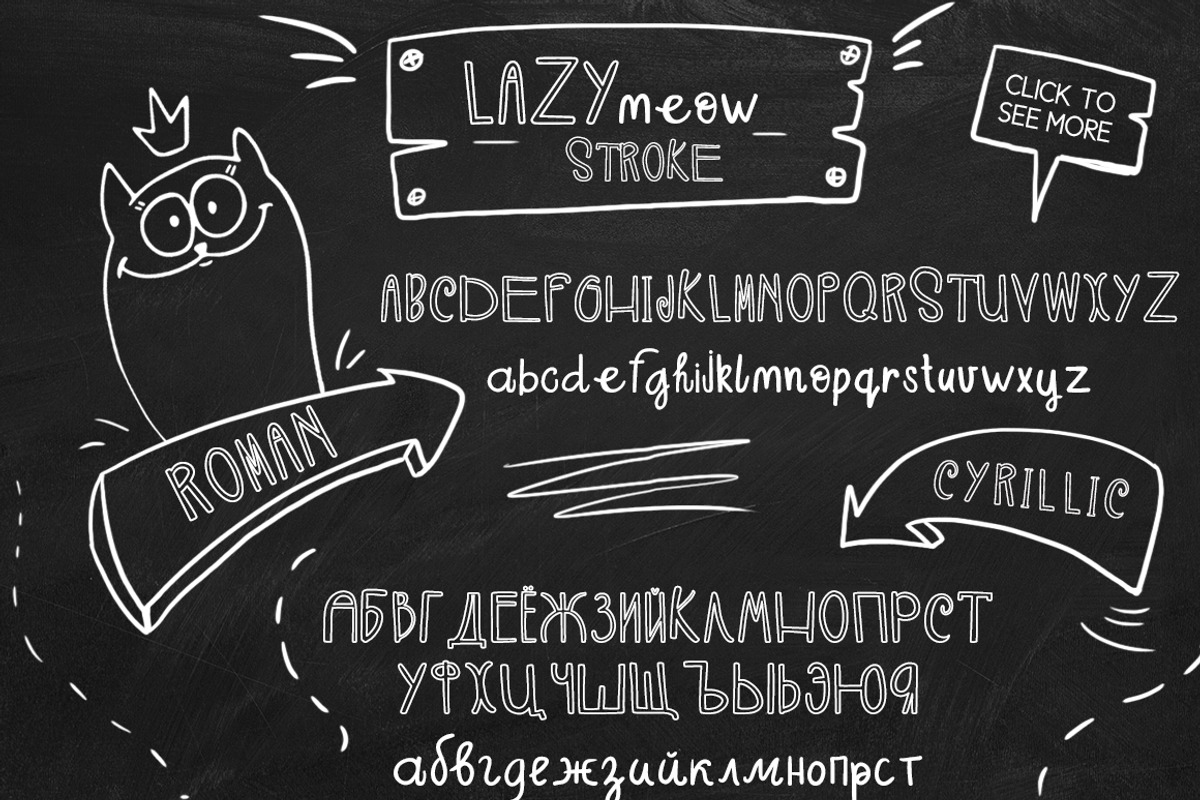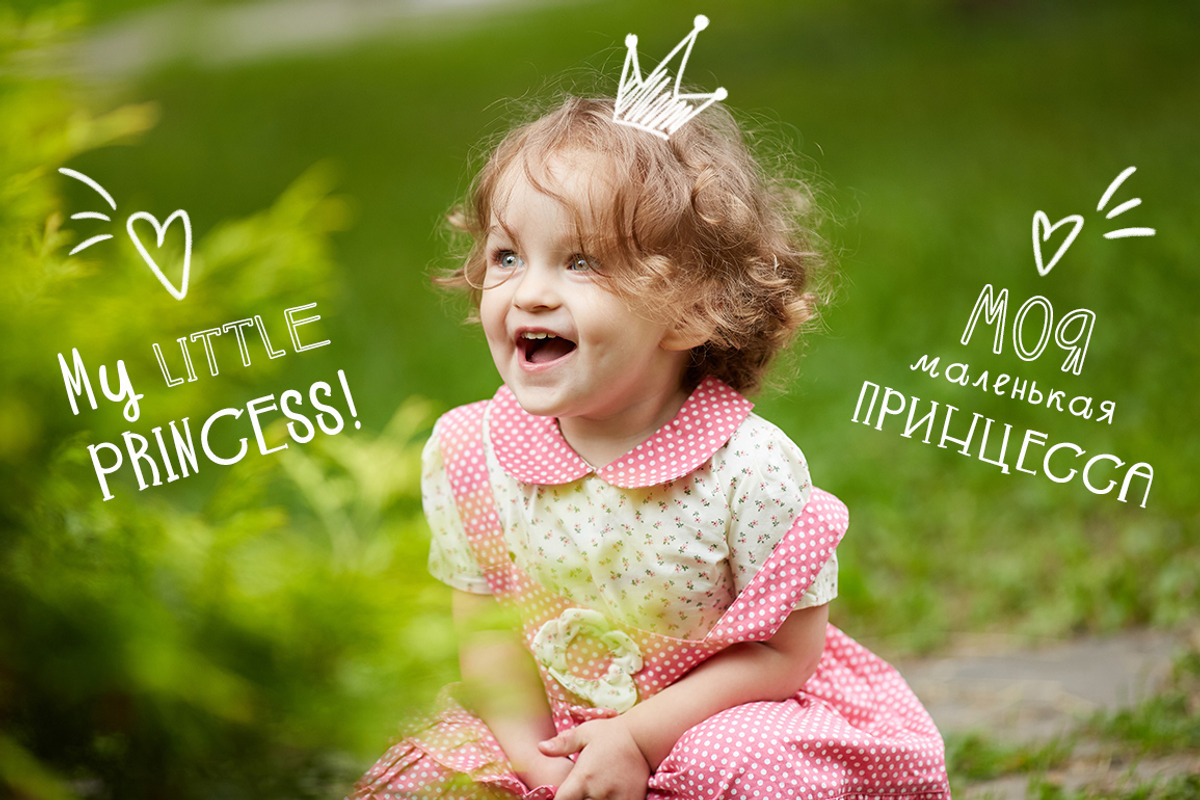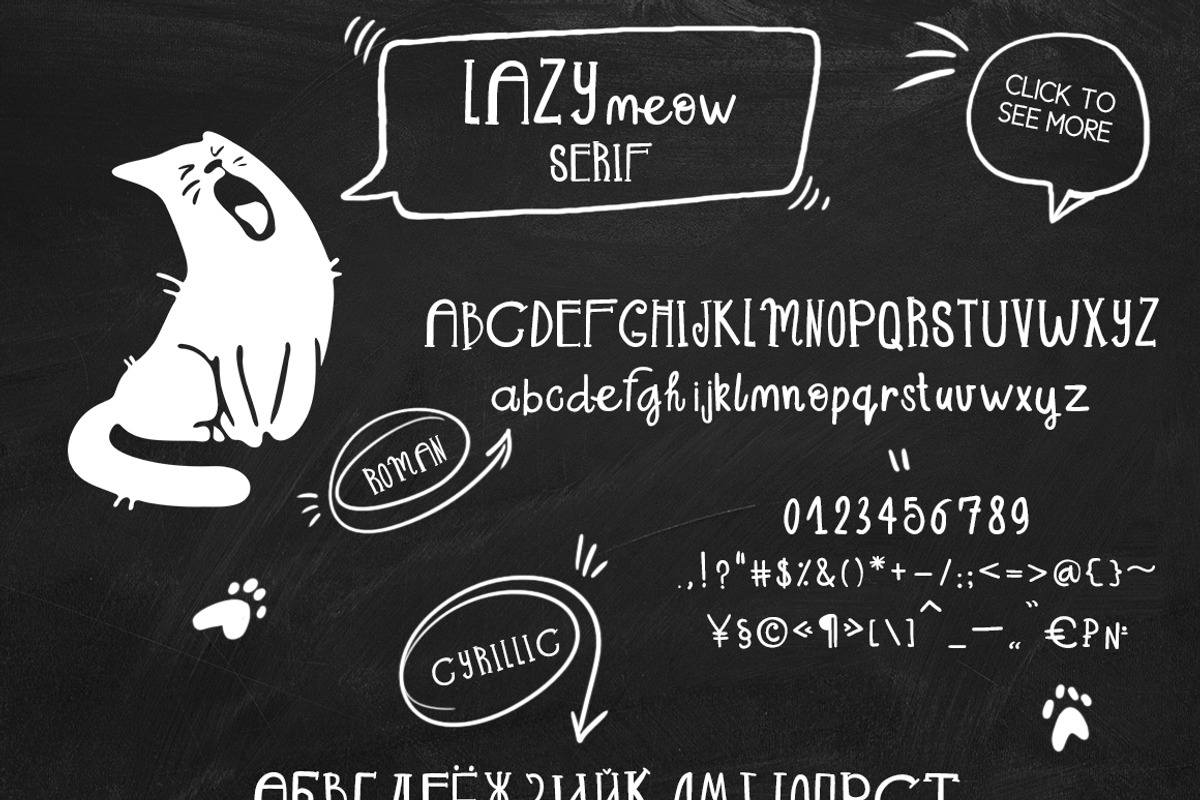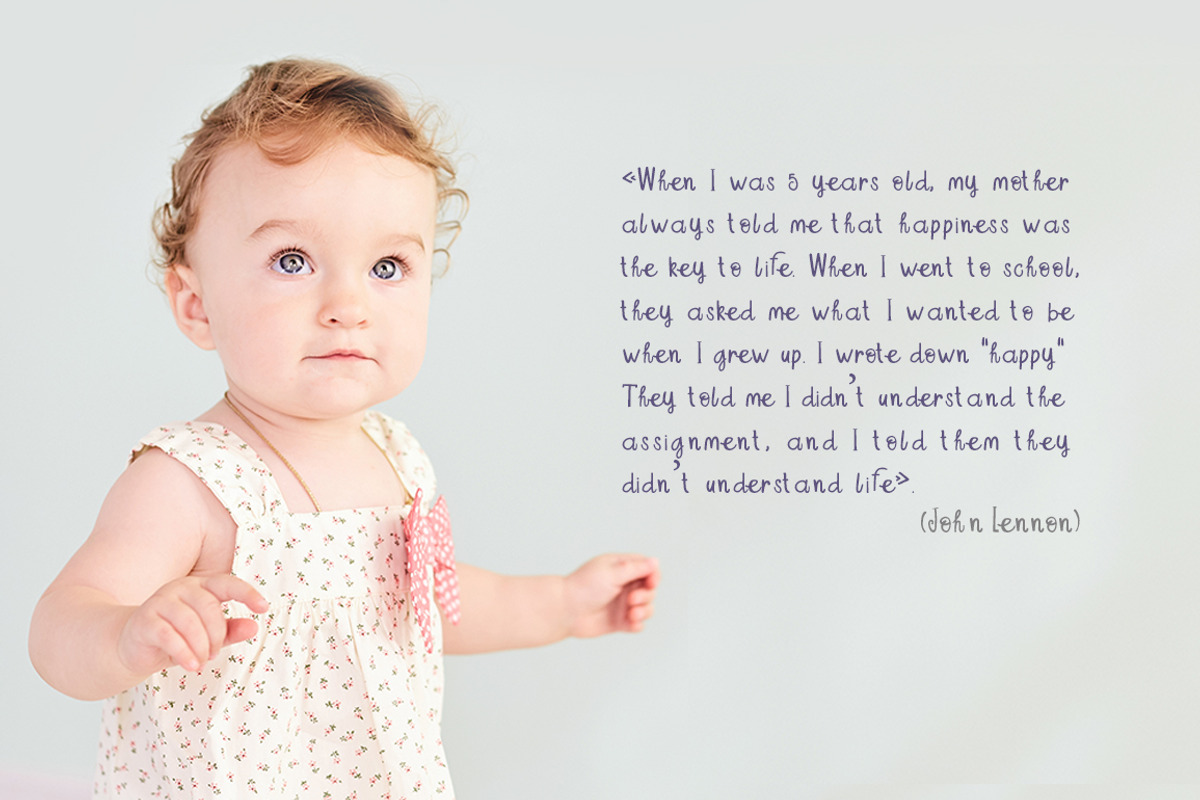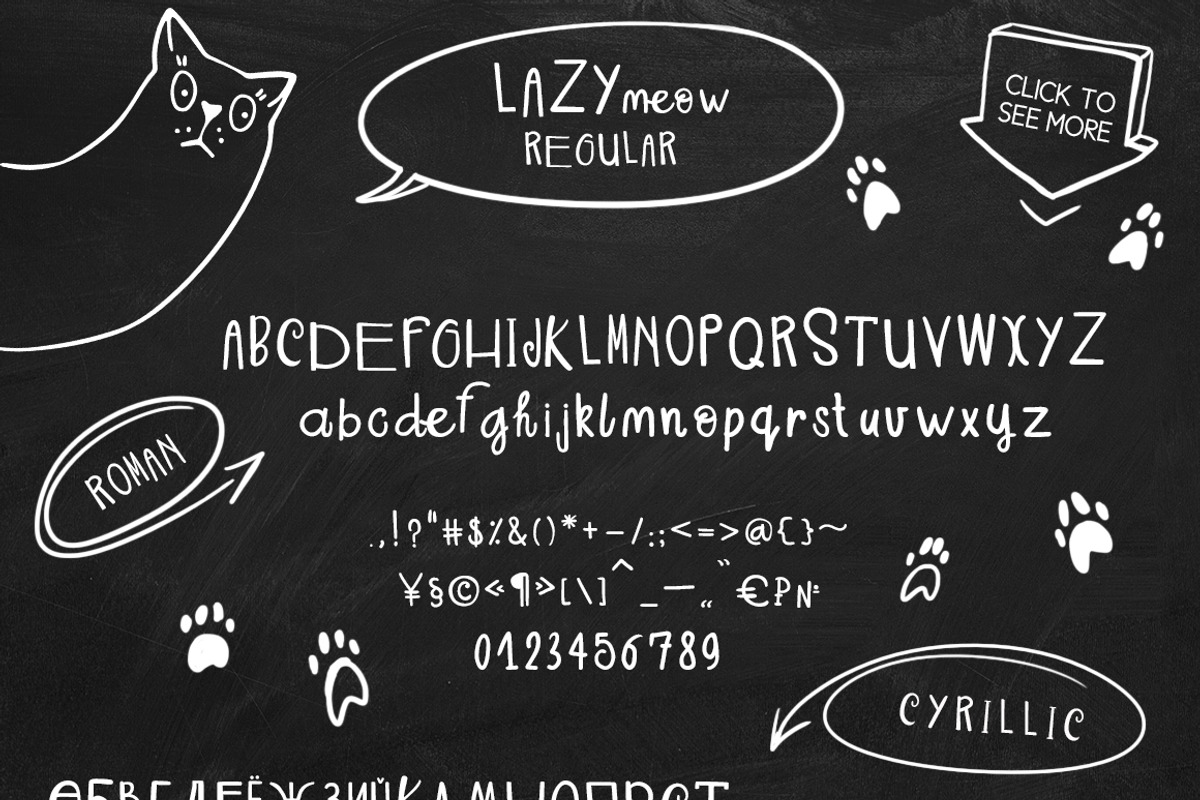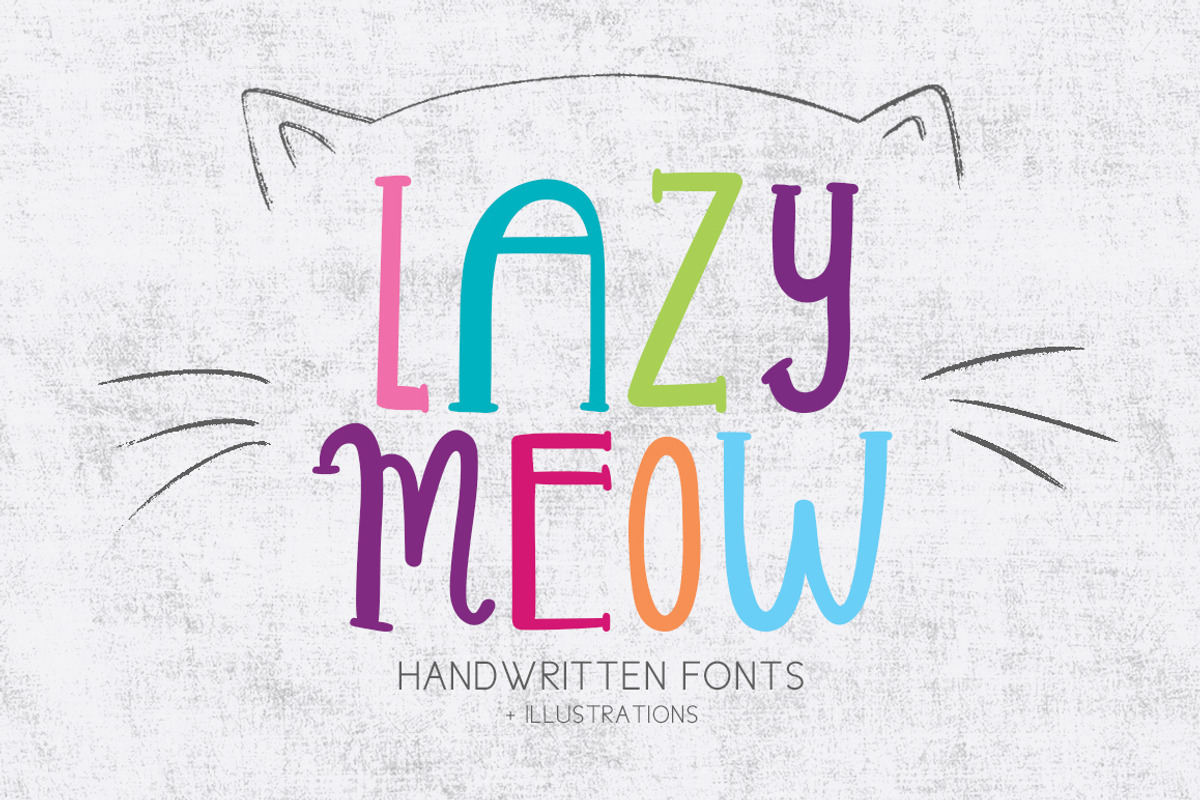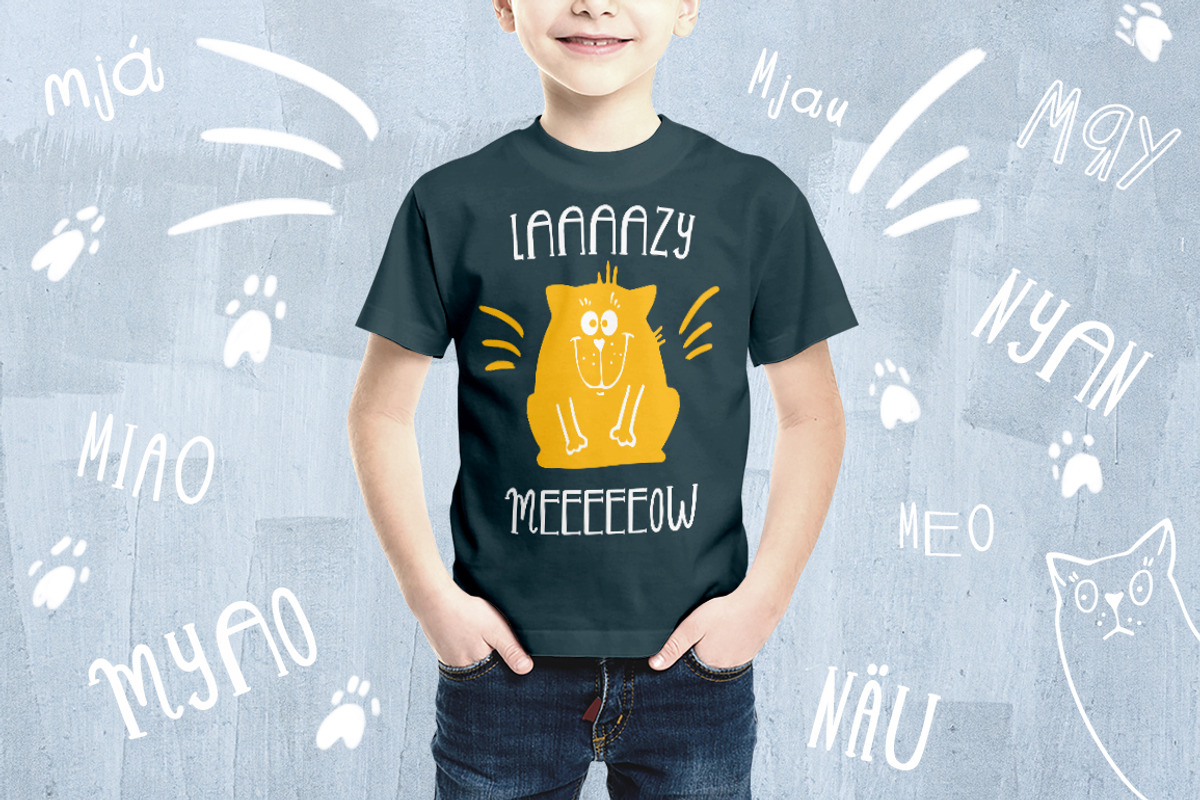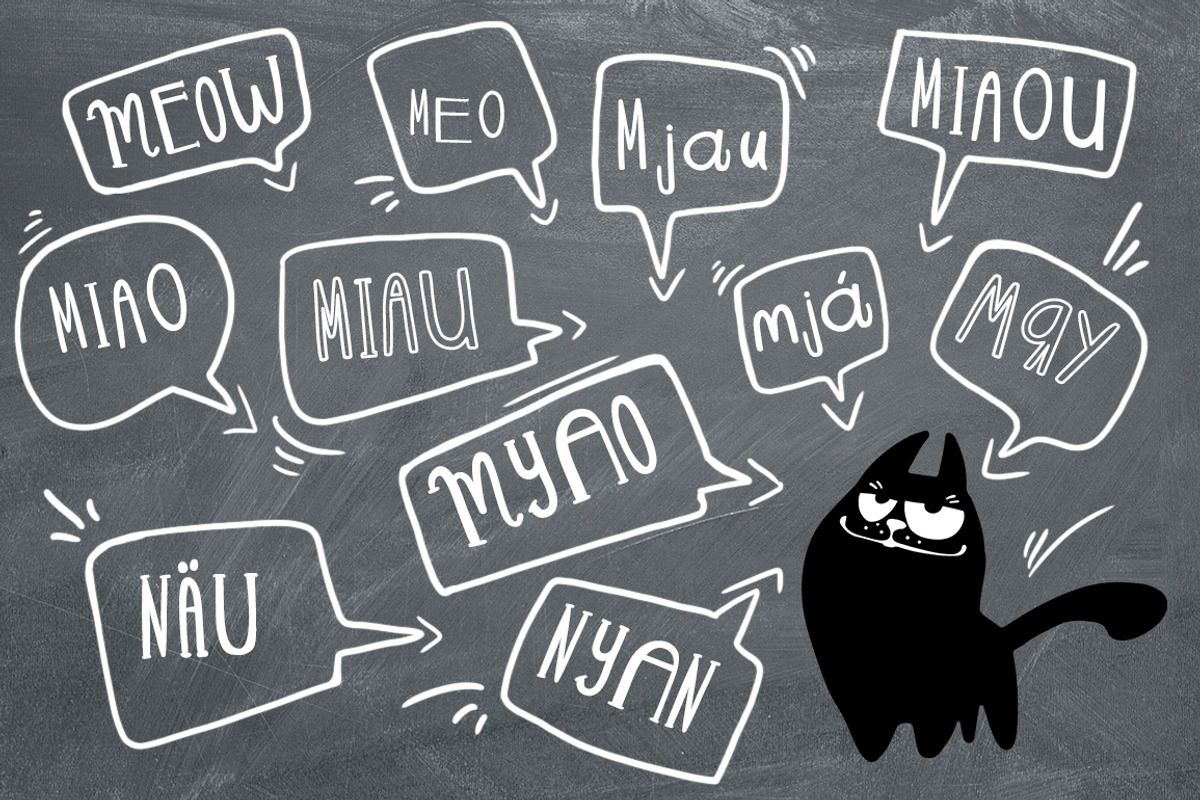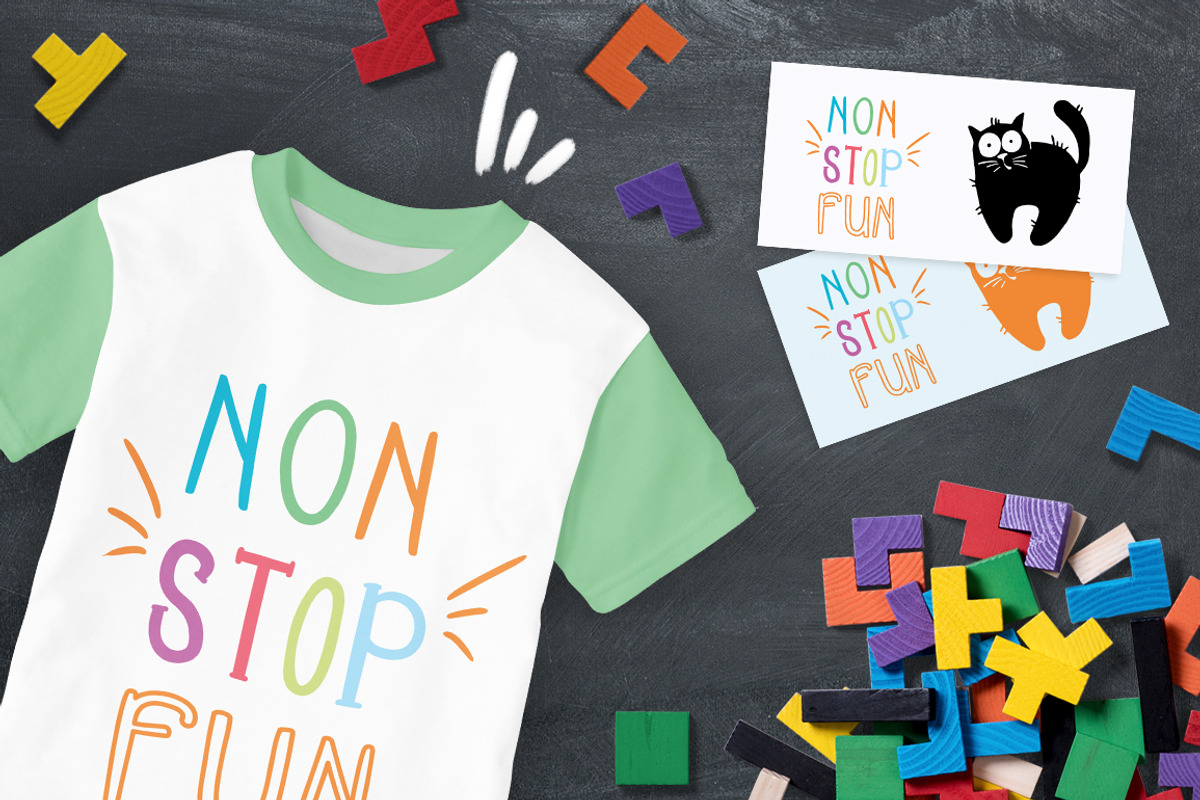
LAZY MEOW. Handwitten fonts+cliparts
Hi! I’m pleased to introduce my new fonts! Font for your amazing projects! Using Lazy Meow font and elements of decor, you can create logos, posters for the interior and not only.
It has upper and lower case letters, numbers, special characters, accents. Perfect for Children! You can mix and match font, elements and patterns to create your unusual designs.